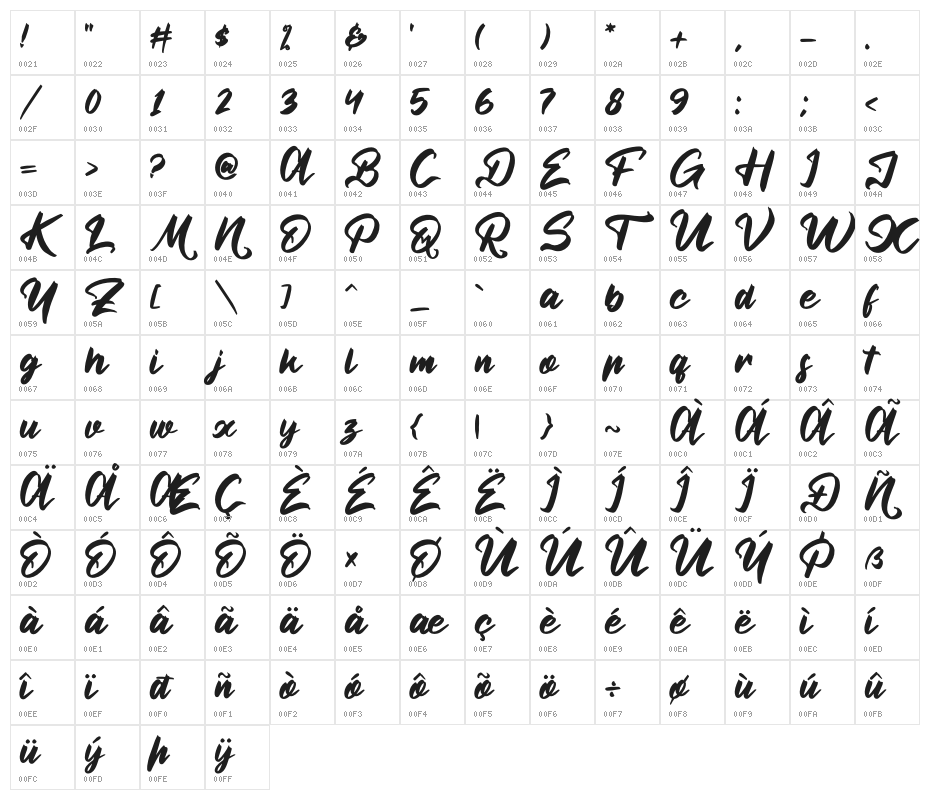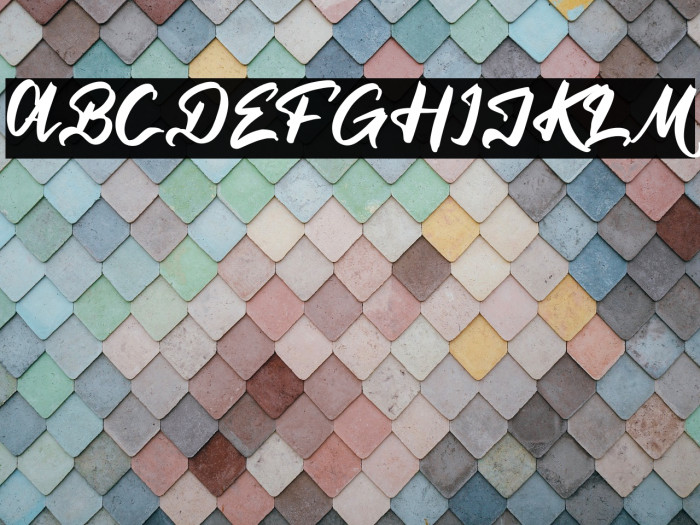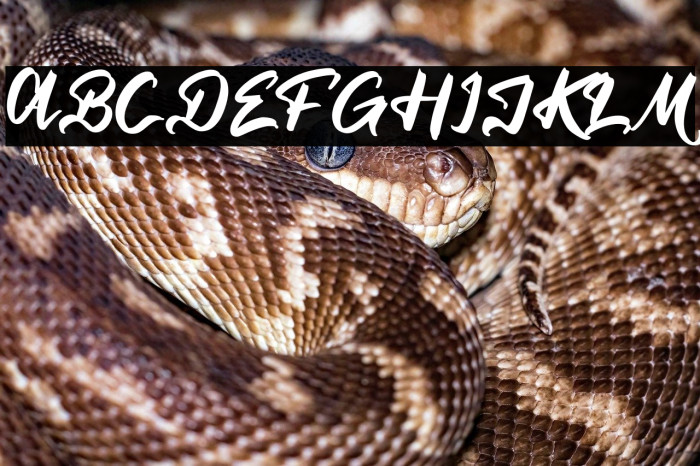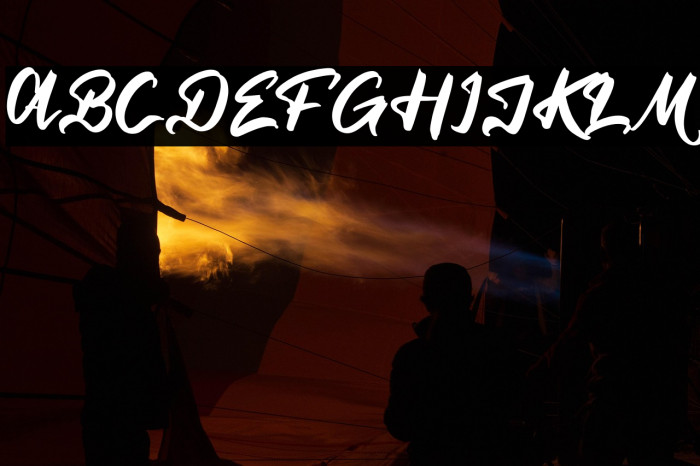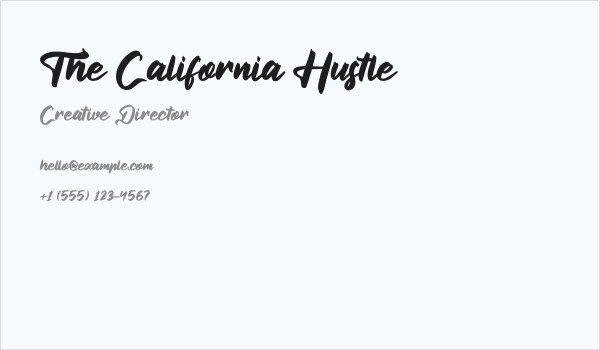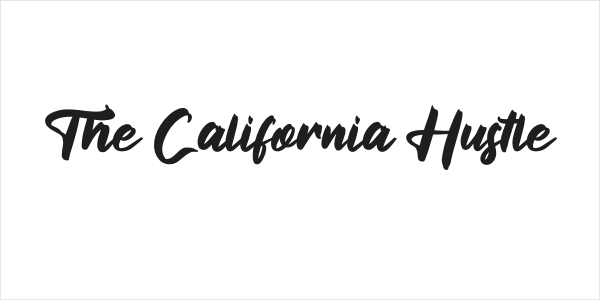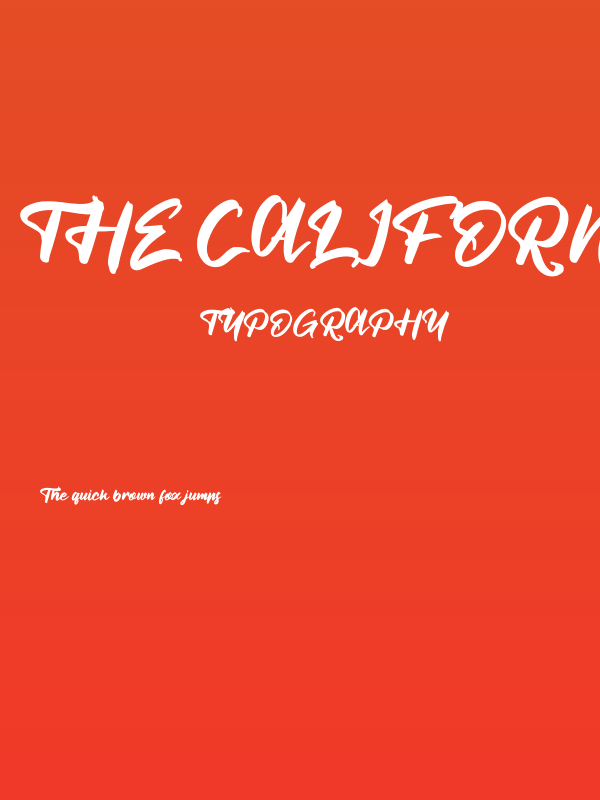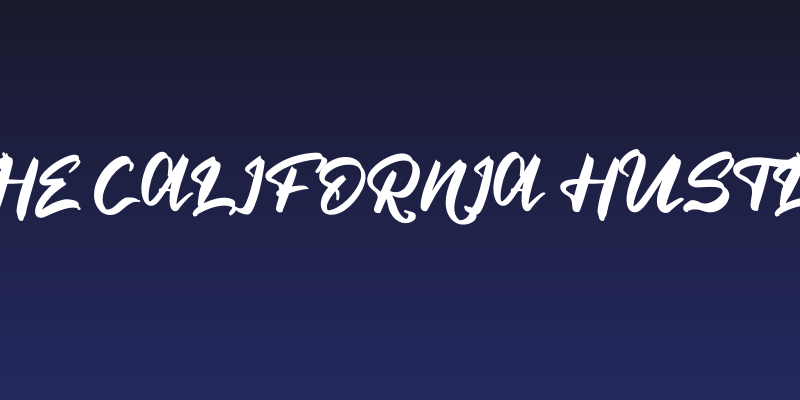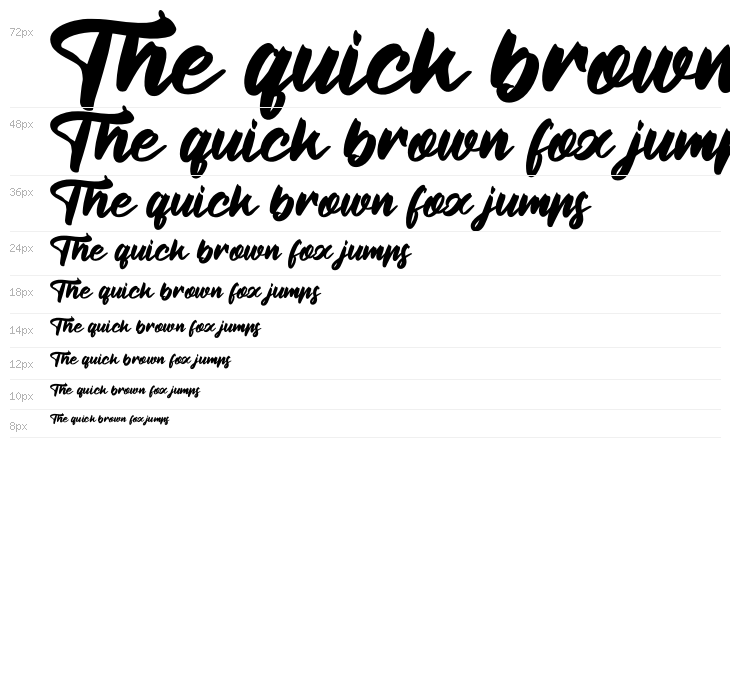
The California Hustle Font
The California Hustle Description
This font features a bold and dynamic script style with a strong presence. The letters are connected in a fluid manner, creating a sense of movement and energy. The strokes are thick and consistent, giving the font a robust appearance. The uppercase letters are slightly larger and more pronounced, while the lowercase letters maintain a cohesive flow. The numerals and special characters are designed to match the overall style, ensuring uniformity across all elements. This font is ideal for projects that require a bold and expressive touch, such as branding, posters, and headlines.
| Proposed Projects | Ideal for branding, posters, headlines, and any project needing a bold, expressive touch. |